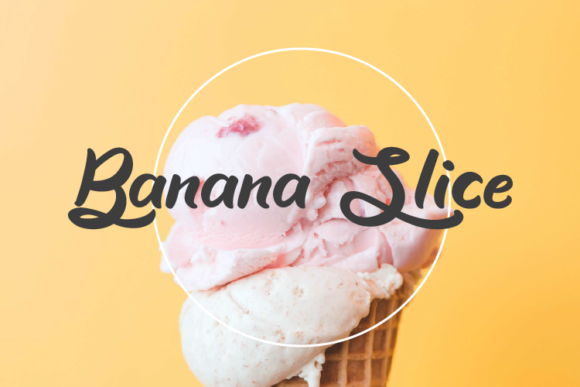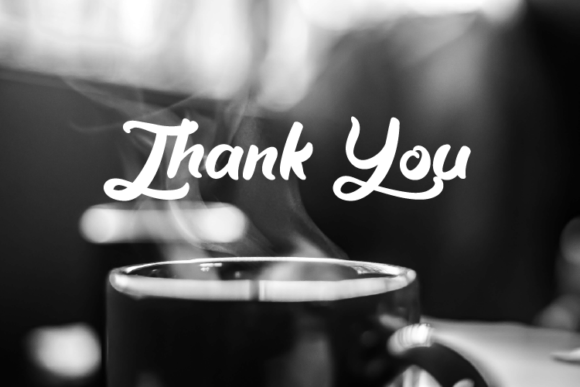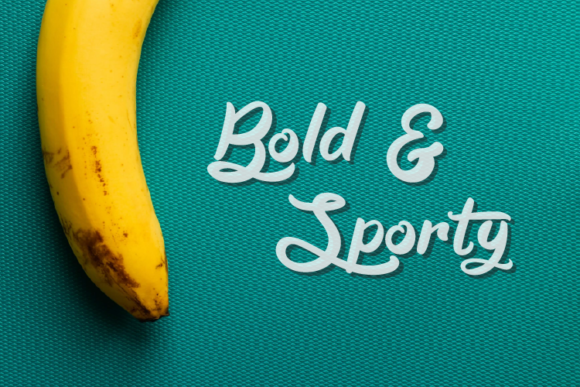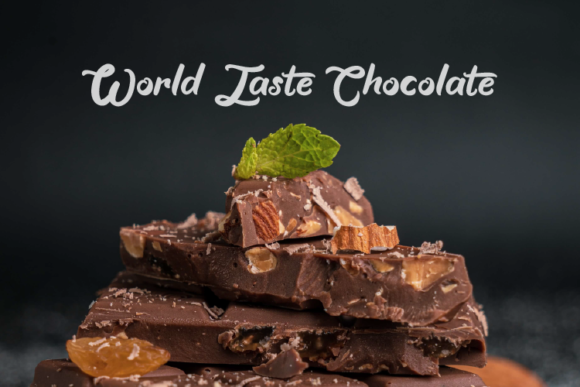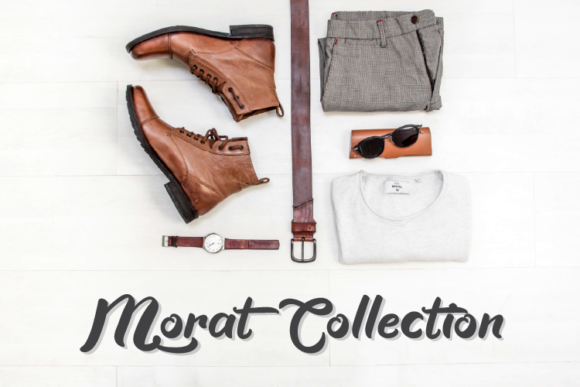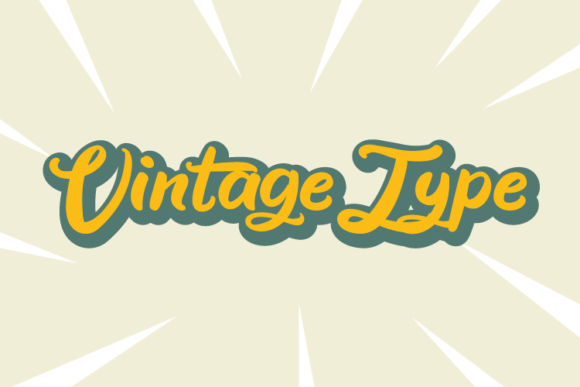
About Banana Slice Font
Banana Slice is a fun and contemporary script font that adds a playful touch to your designs. Its versatility makes it ideal for various applications, including promotion media, quotes, and business-related projects. This font is particularly loved by graphic design artists, as it complements their creations beautifully. Inspirational posters come to life with Banana Slice, making it a great choice for motivational and uplifting designs.
The font’s modern design ensures compatibility with any application, making it easy to use across different platforms and software. Whether you’re working on digital projects or print materials, Banana Slice delivers a visually appealing and eye-catching result.
With its playful and unique style, Banana Slice brings a delightful personality to your designs. The smooth curves and well-crafted letterforms create a cohesive and visually pleasing font that captivates the audience. It’s perfect for adding a touch of fun and creativity to your creative projects.
Whether you’re creating social media graphics, branding materials, posters, or any other design, Banana Slice is a font that effortlessly catches attention and leaves a lasting impression. Its modern script style, along with its playfulness, make it a versatile choice for various design projects. Embrace Banana Slice in your creative endeavors and see how it enhances and enlivens your work.